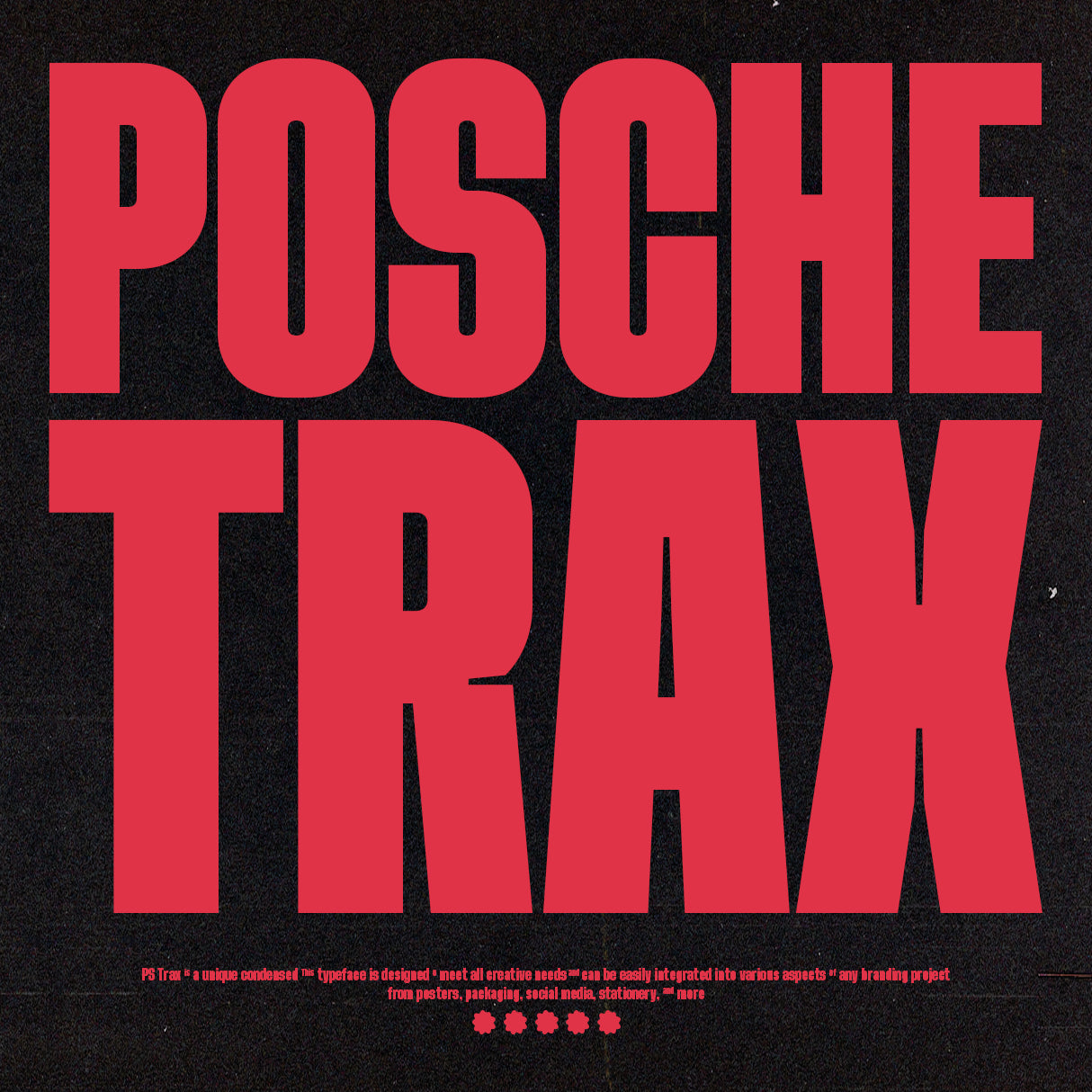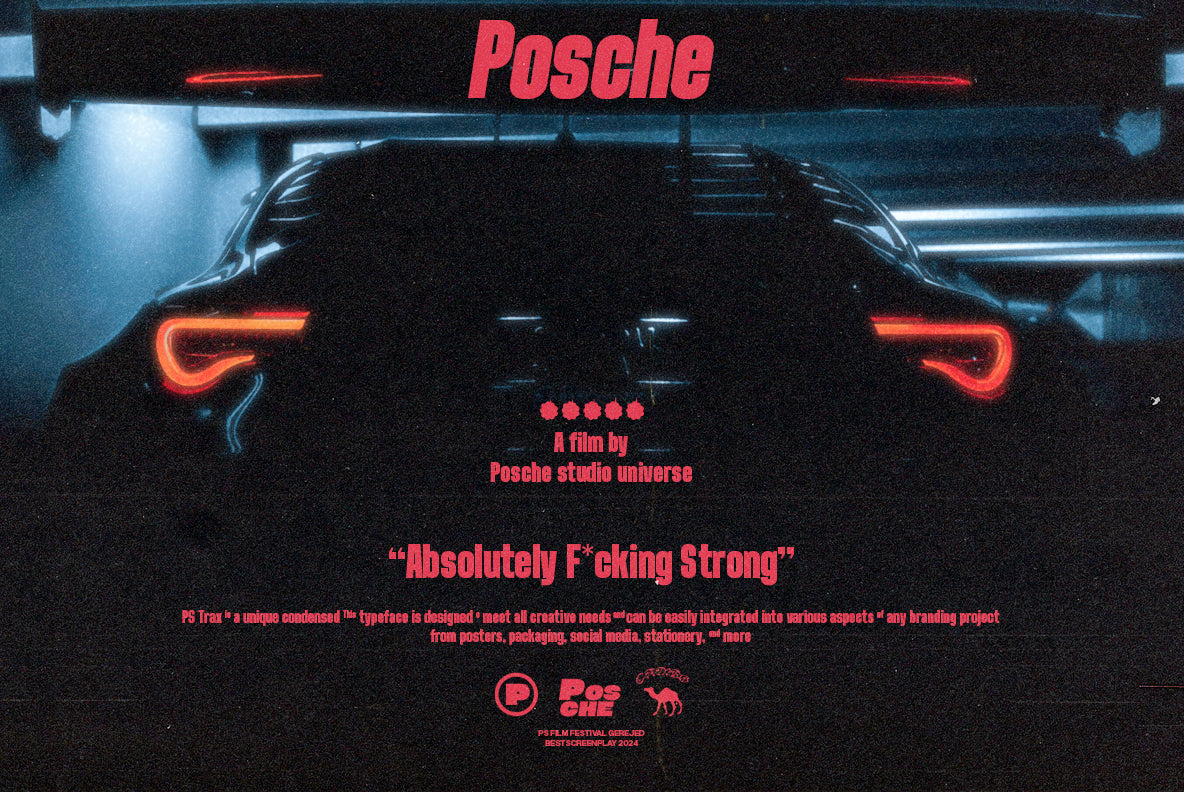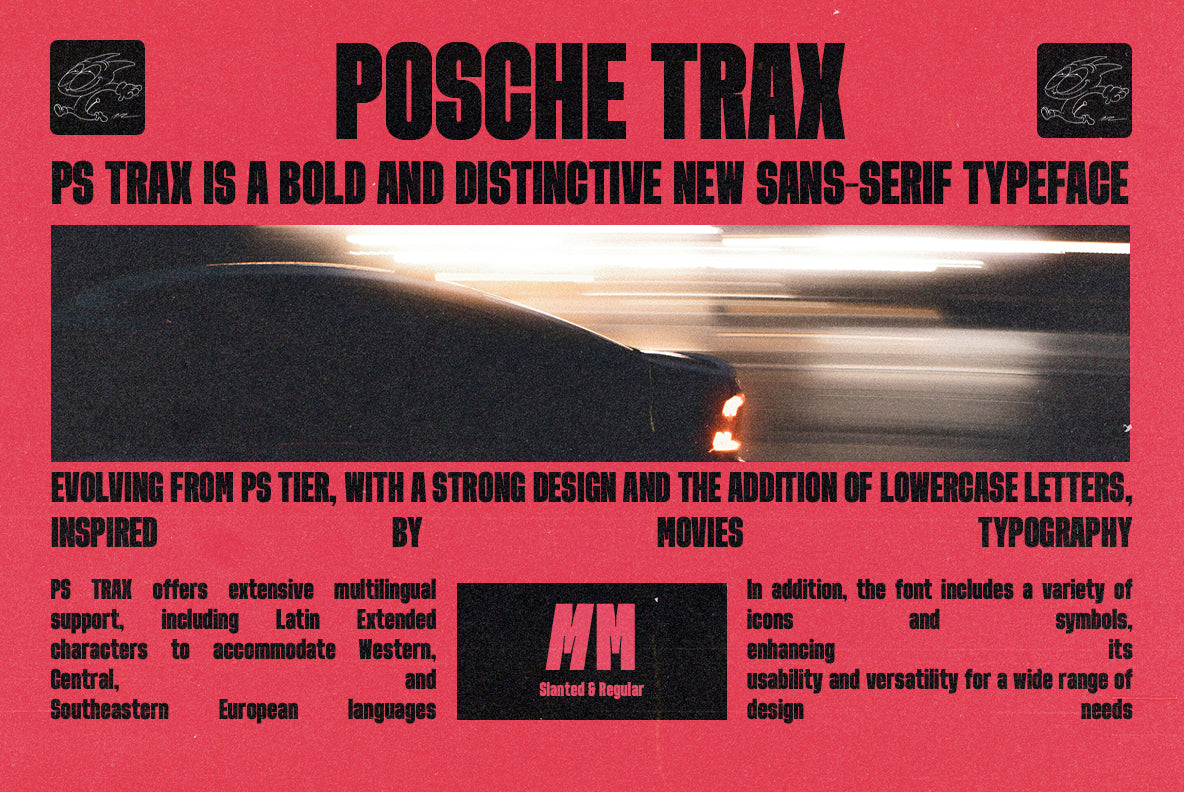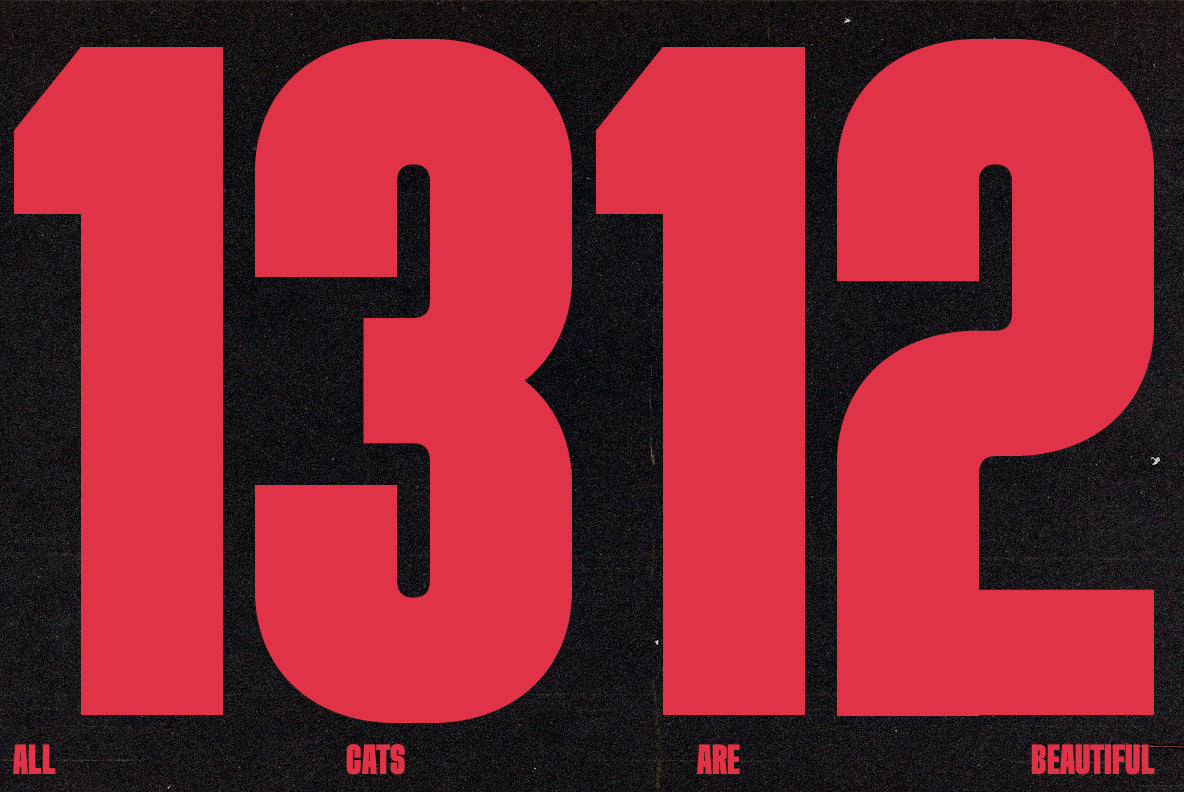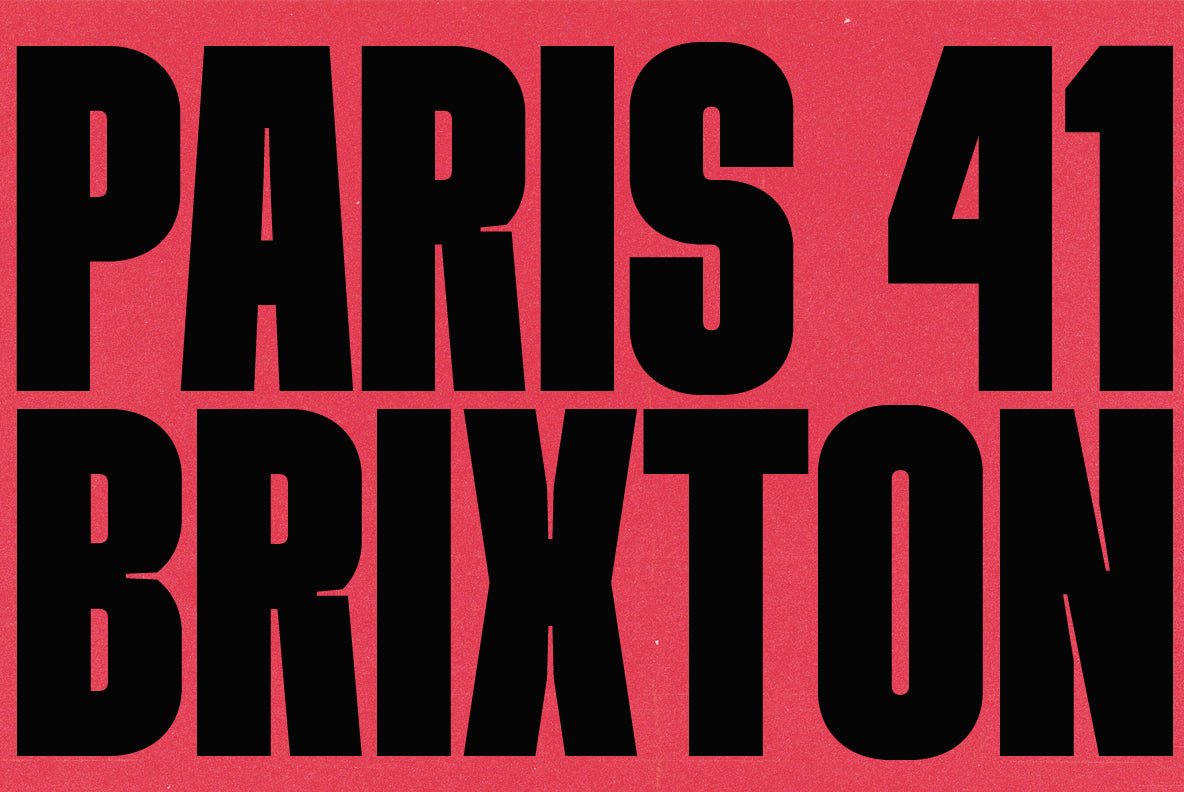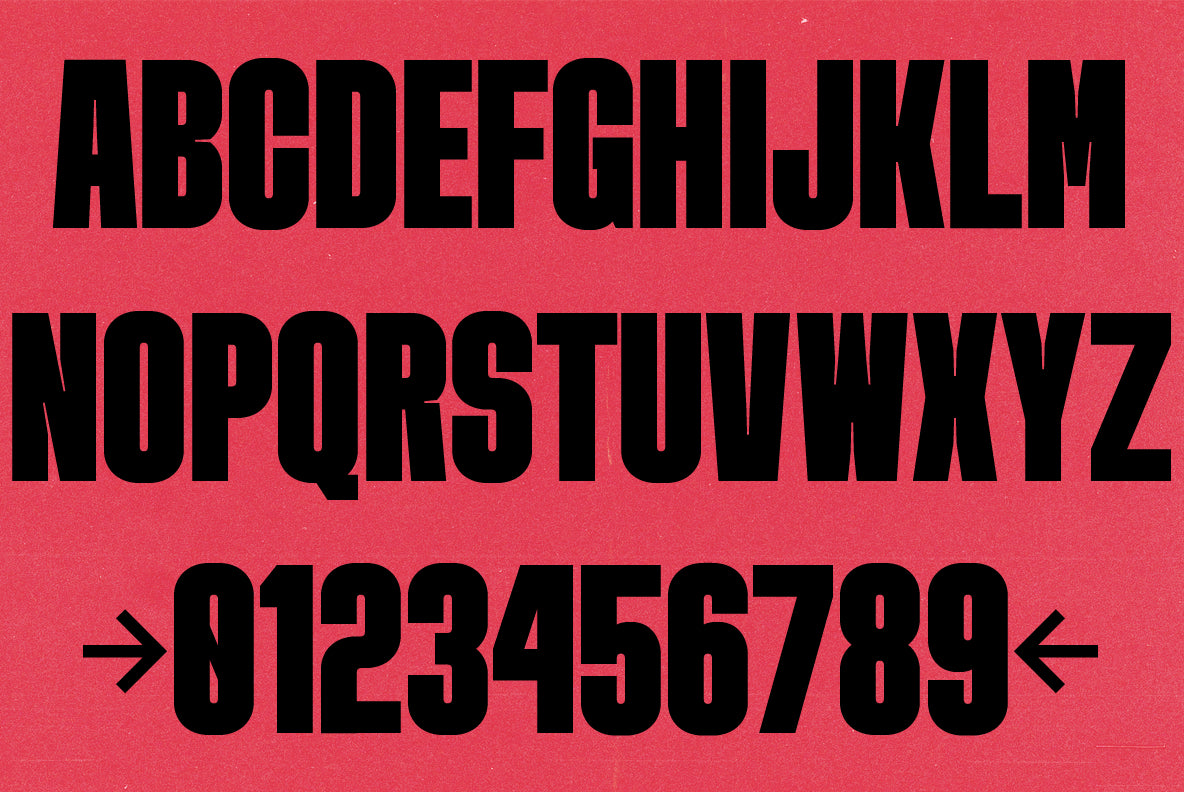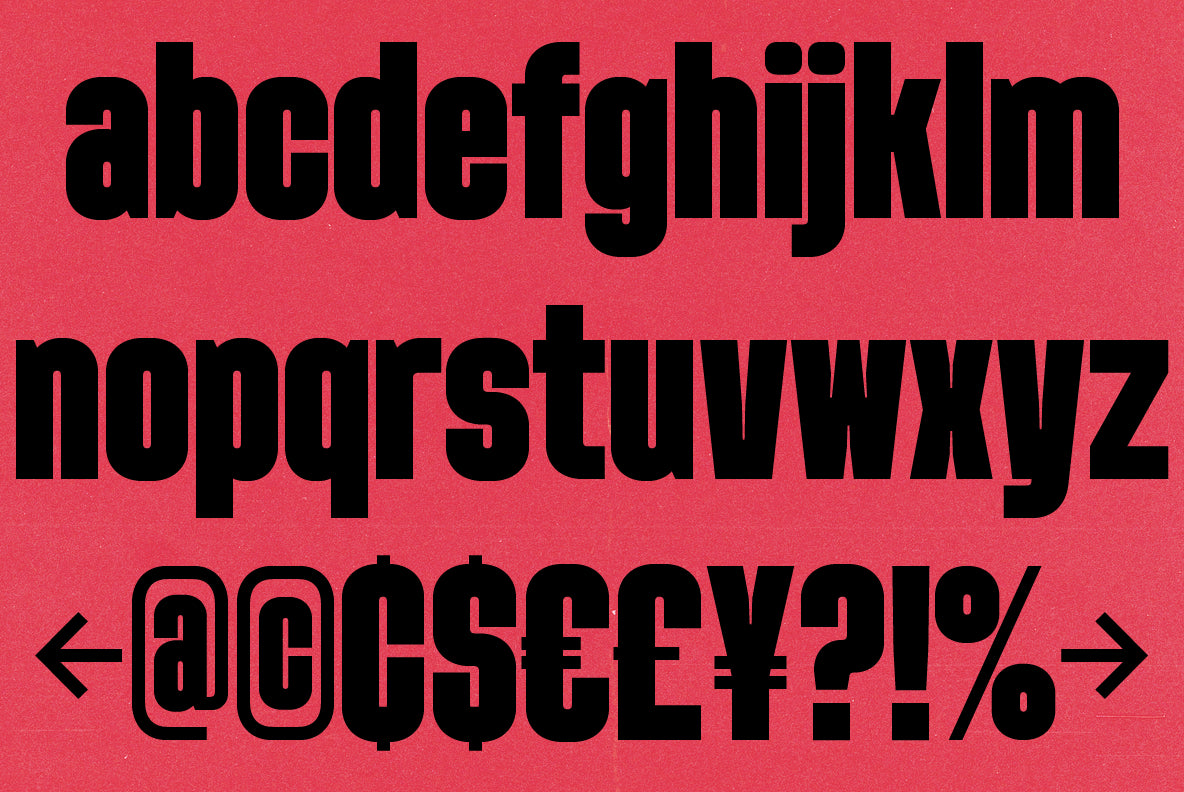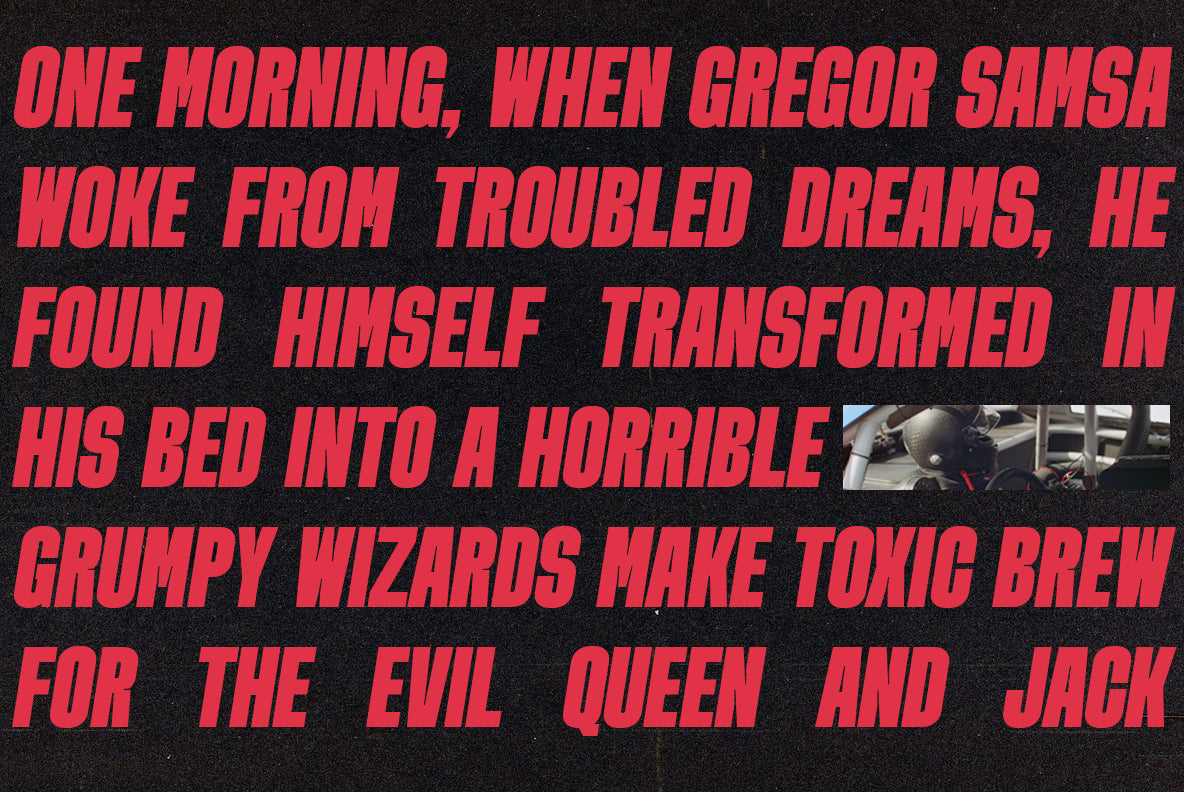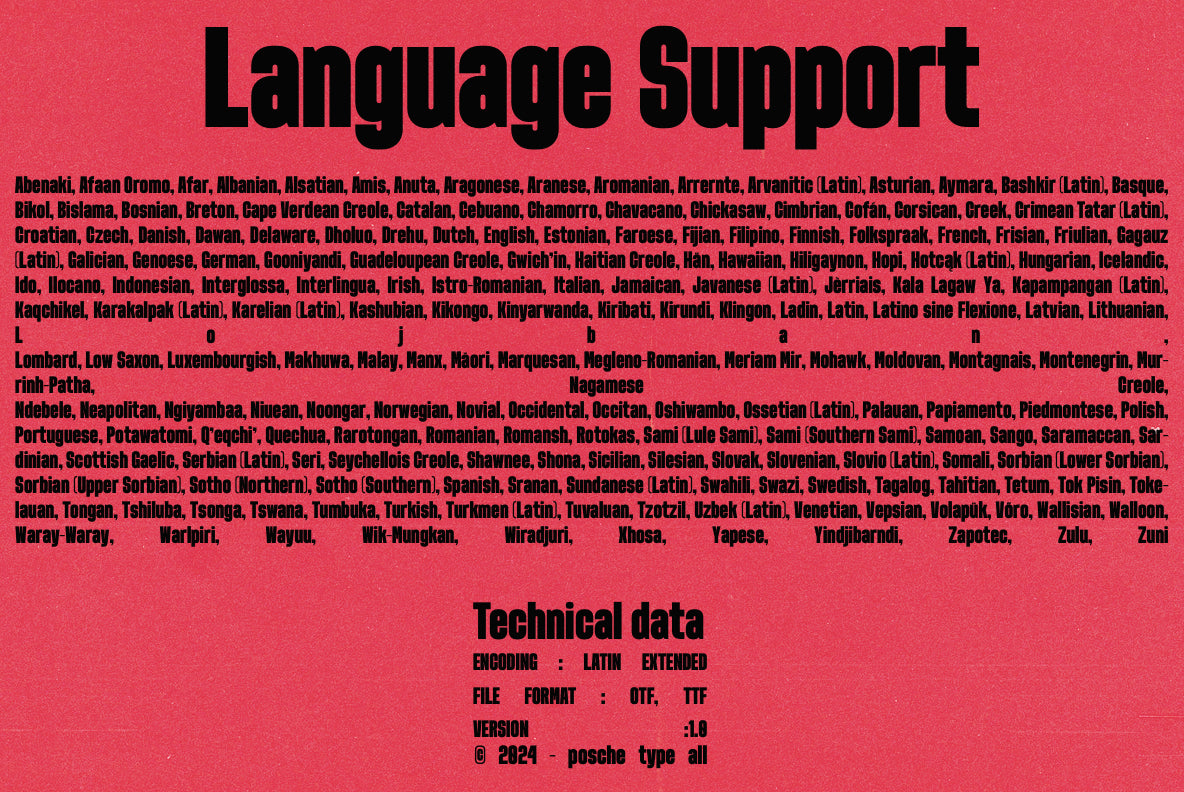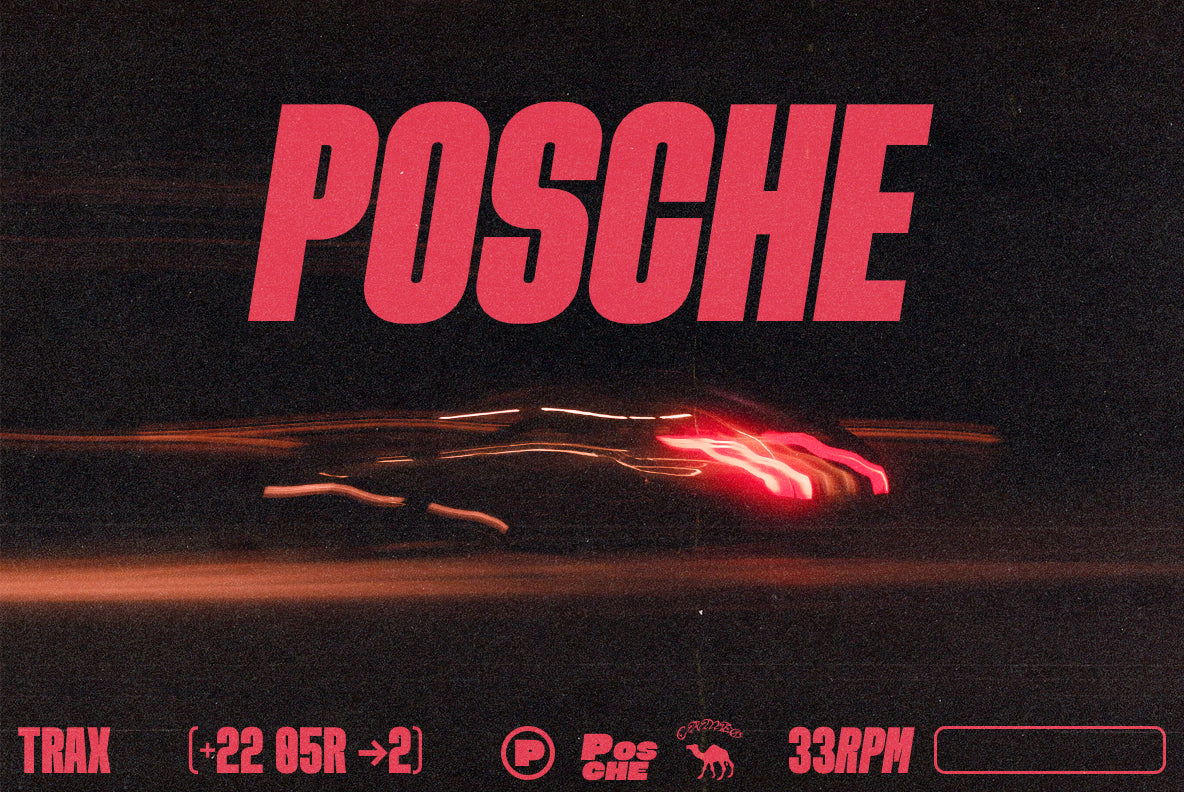
PS Trax | Display Typeface
PS Trax is a bold display typeface featuring sharp lines and a dynamic slanted style, available in both uppercase and lowercase letters. It offers robust multilingual support with Latin Extended characters and includes icons and symbols, making it versatile for various design applications.